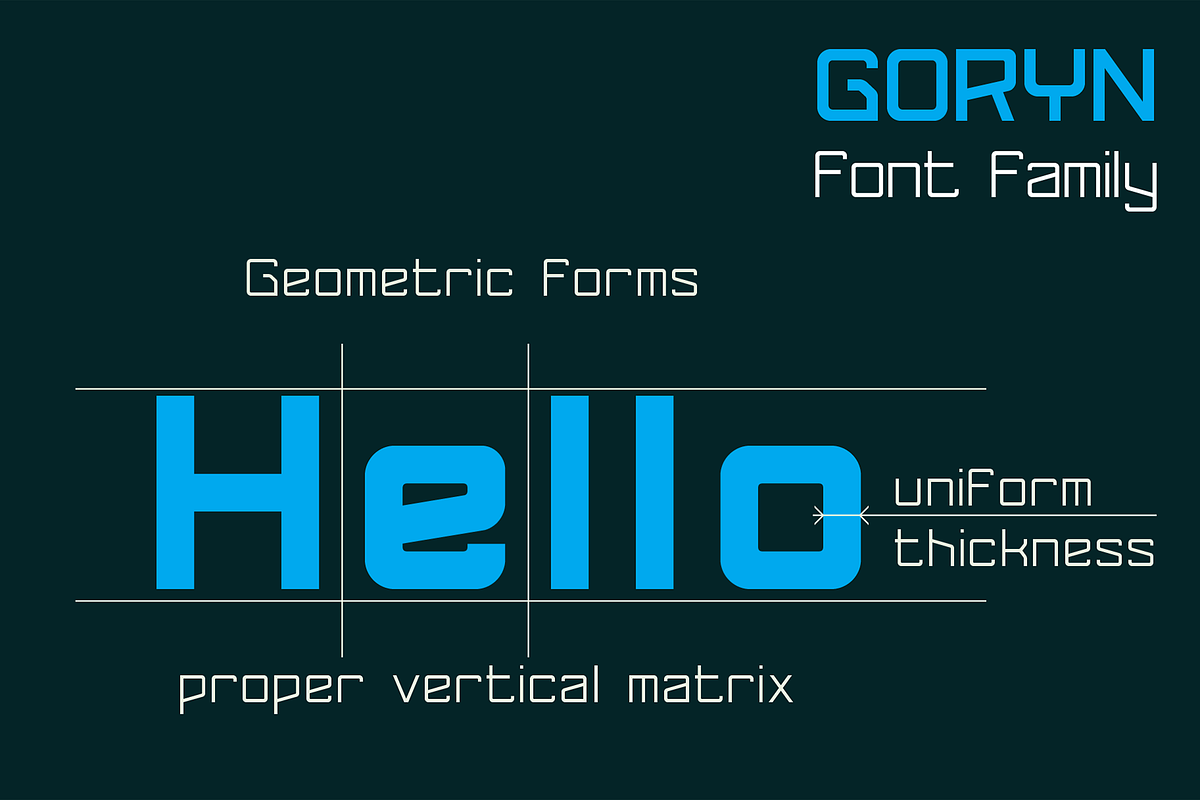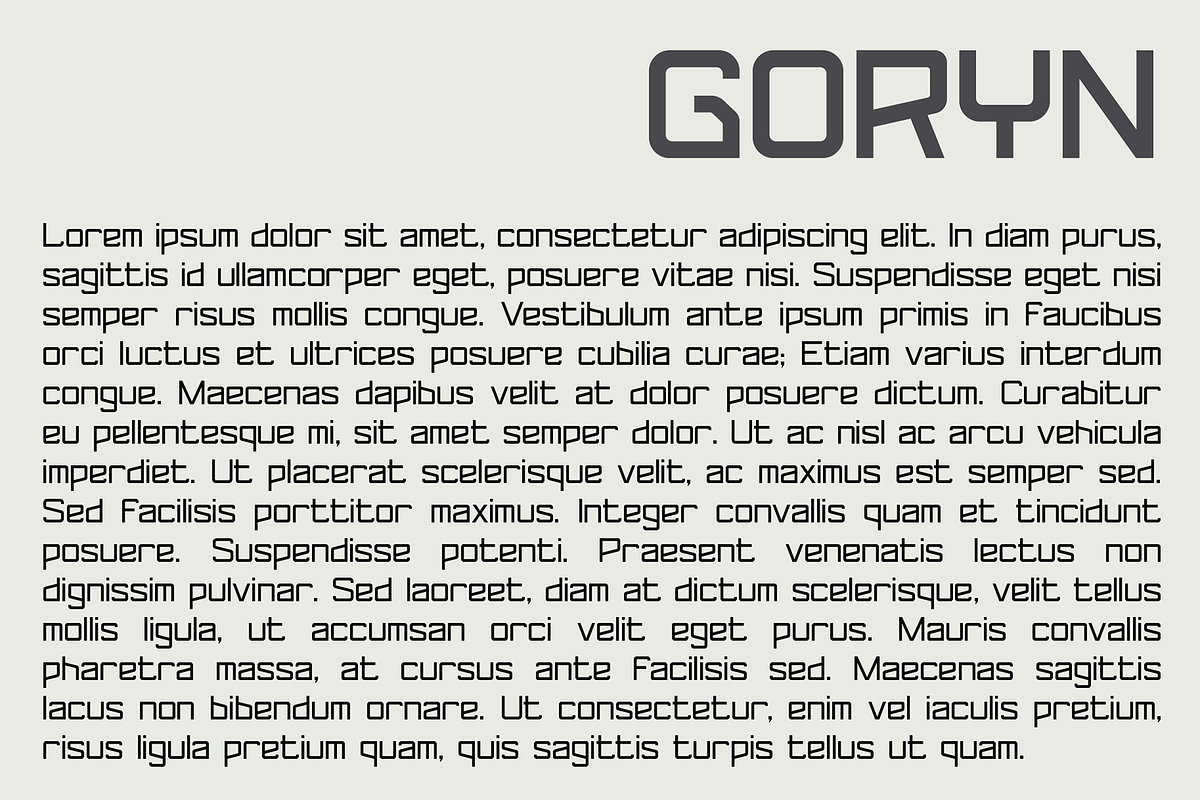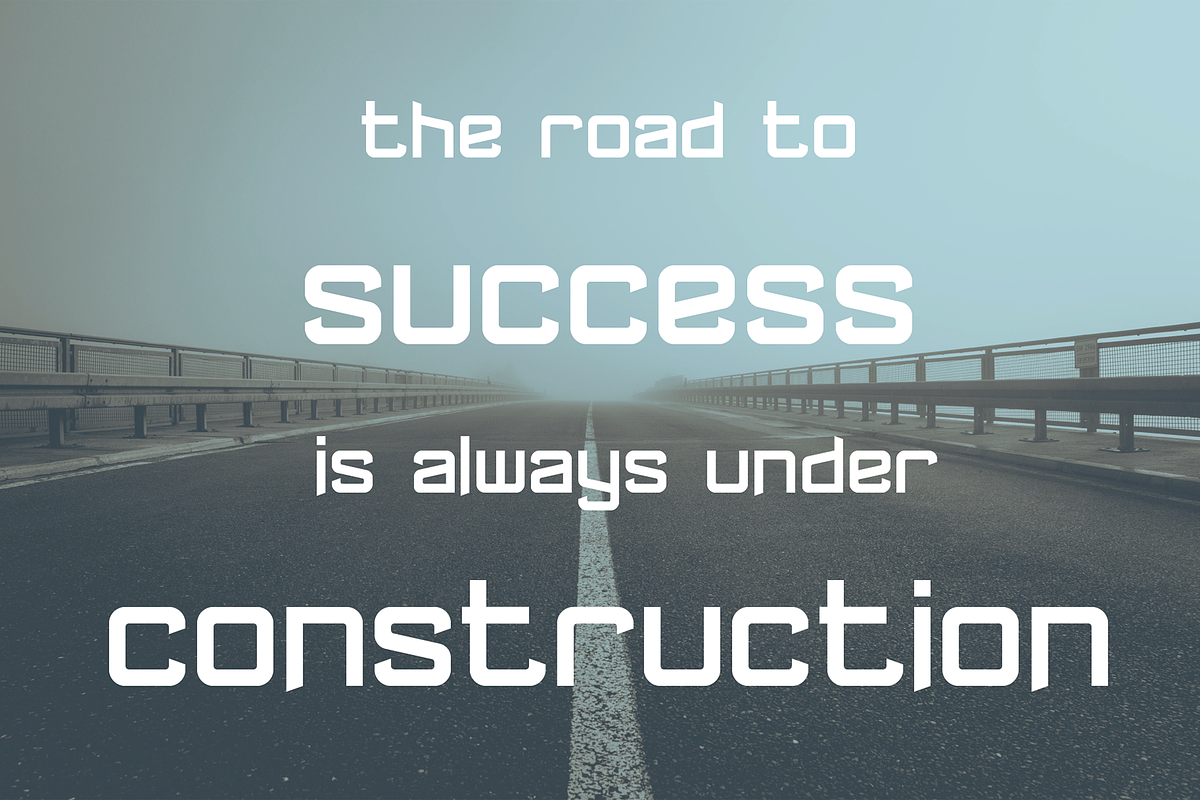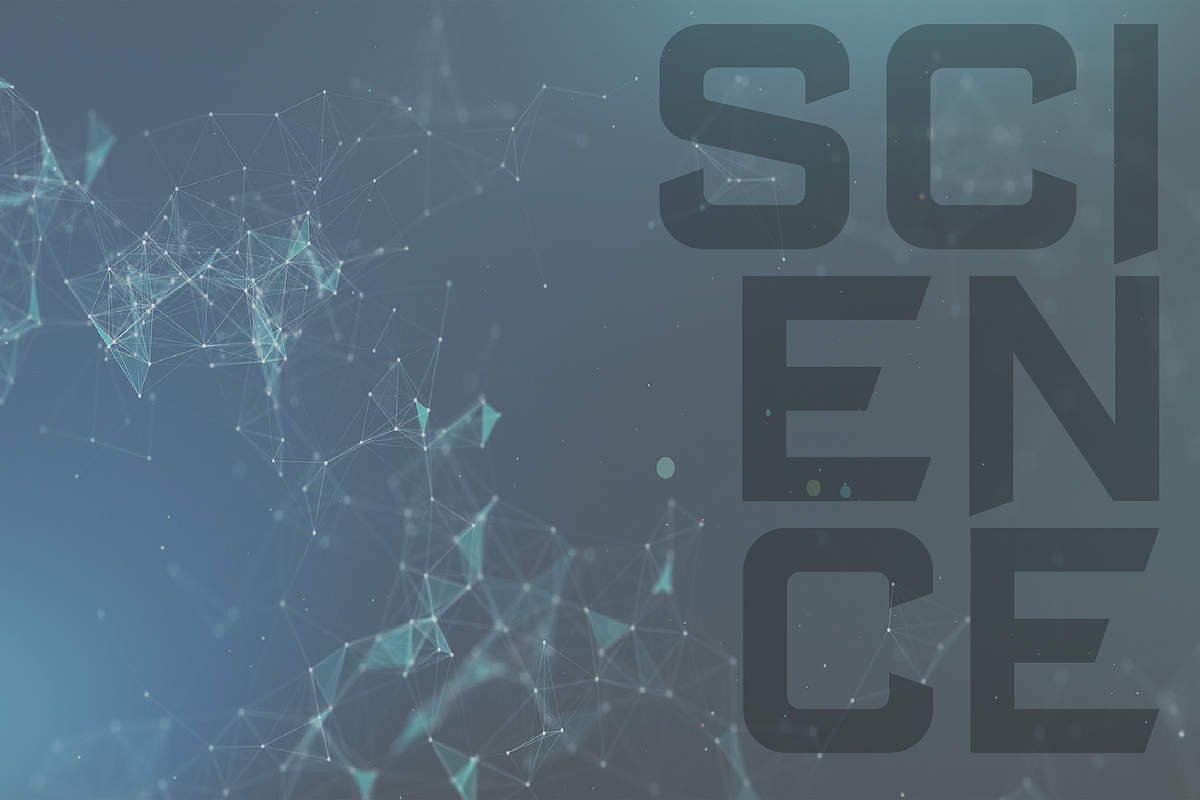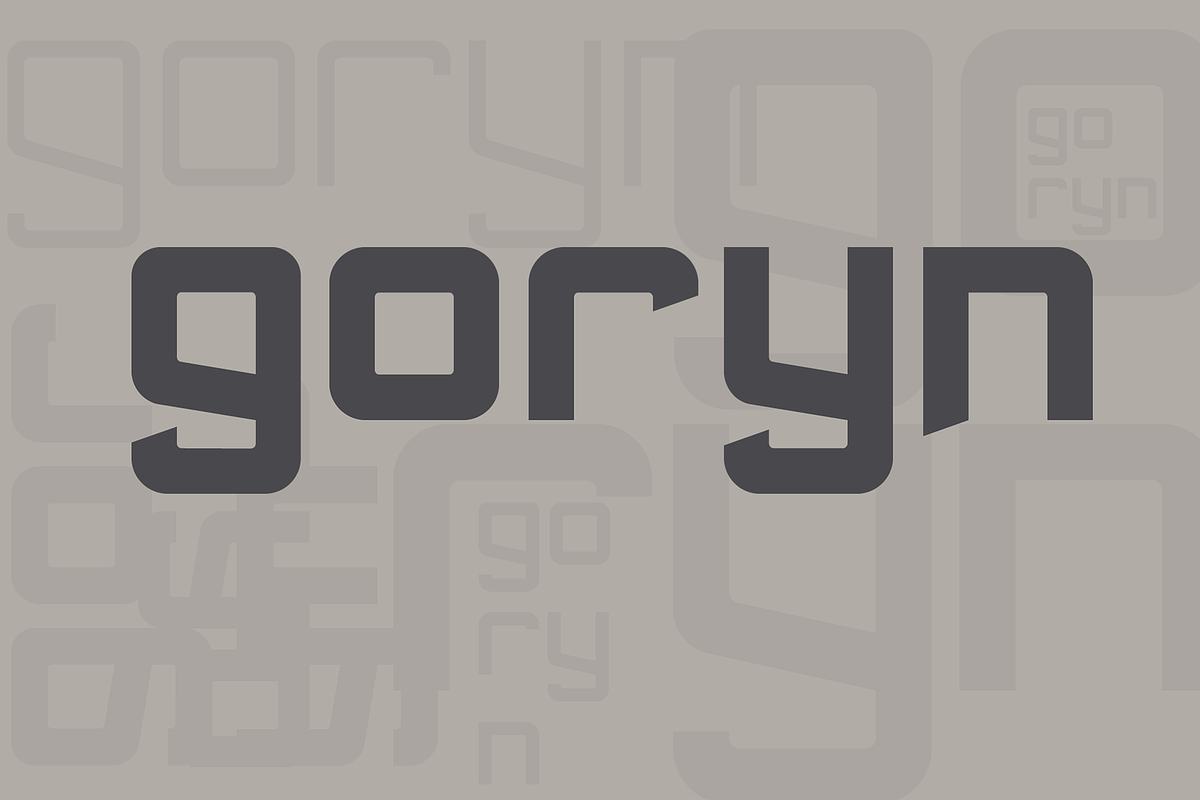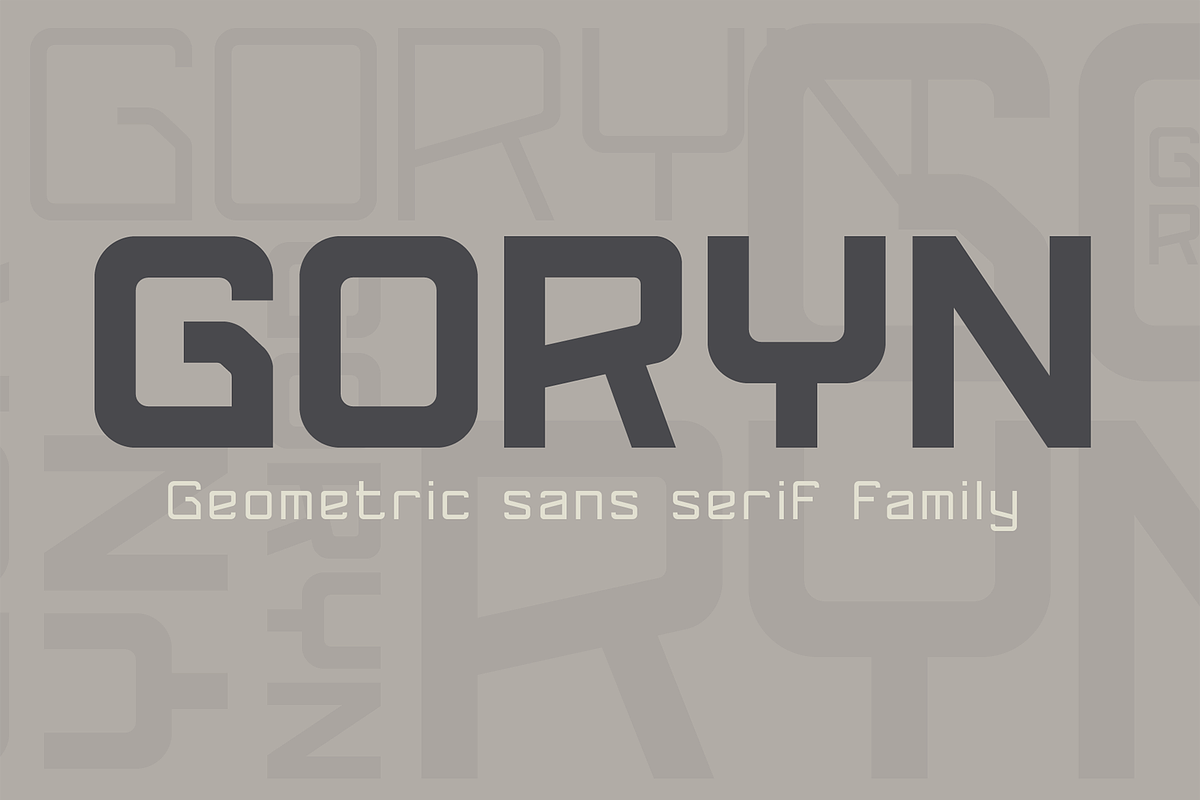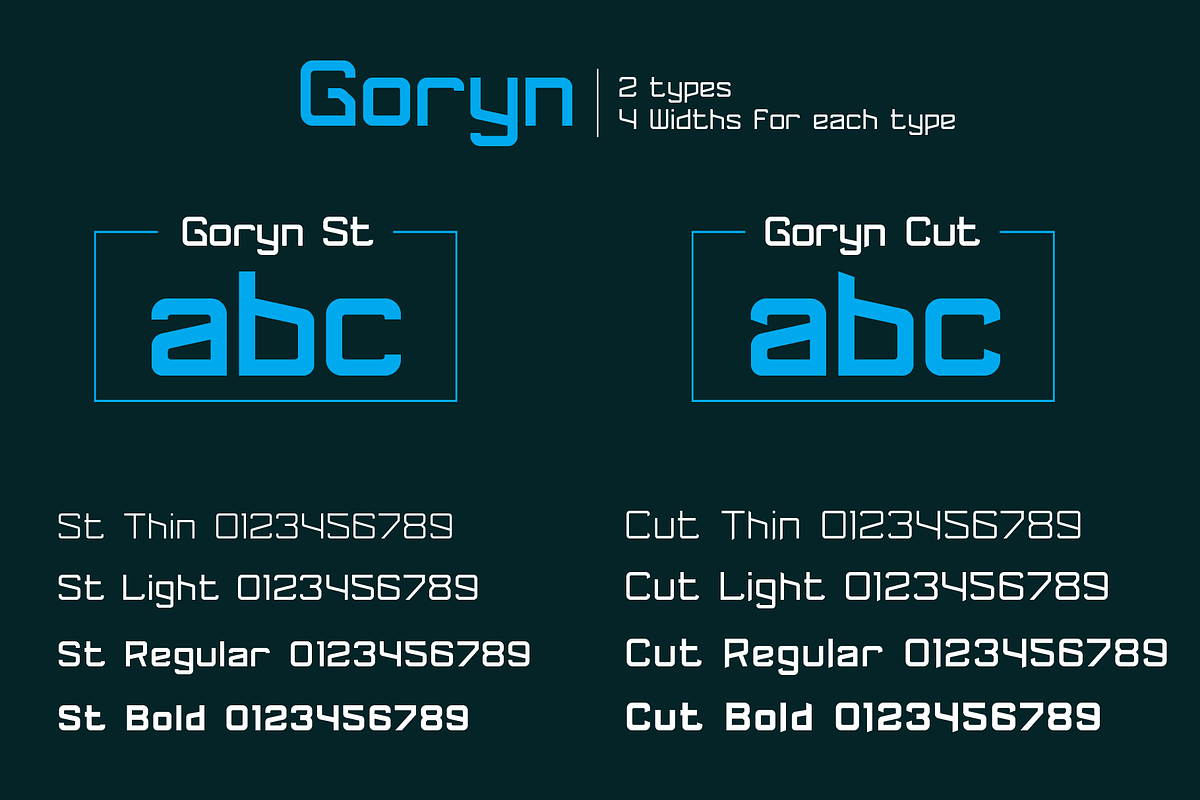
Goryn font family
Goryn is a modern sans serif geometric font, includes upper and lower case characters, Latin, Cyrillic, Latin Eastern Europe, Turkish, Baltic and other, 500+ symbols.
Goryn family consists of 8 fonts, divided into 2 subgroups (according to the type of style - St, Cut), and have the 4 types of thickness in each subgroup.
Goryn fonts will be useful in developing a brand, creating posters and other graphic products, and for word processing.